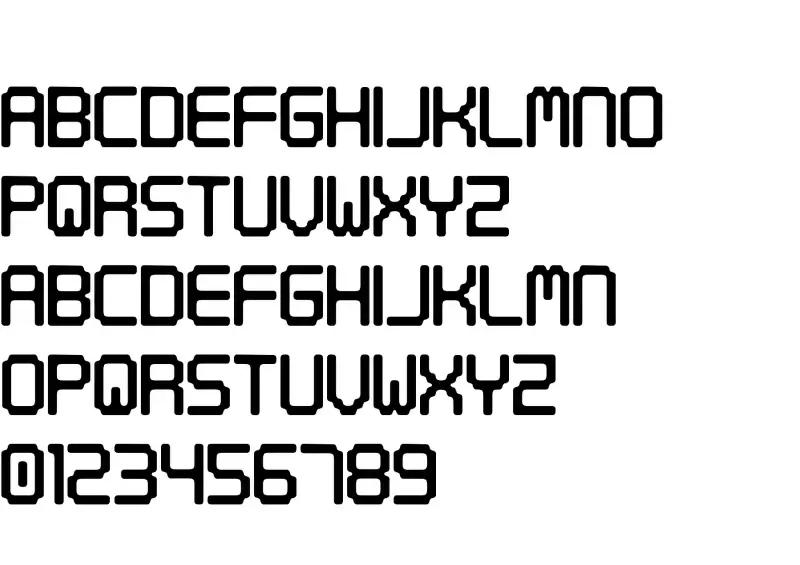
Digital Dismay Font . Download free for personal use. Digital dismay font family designed by unknown designer has a total of 1 different styles. The digital dismay font has been downloaded 18,644 times. You can download the digital dismay font to your. Digital dismay is a techno type. To license this font, please see here! Digital dismay font download is available free from fontget. Free download of digital dismay font. Download and install the digital dismay font by chequered ink. Digital dismay is a free font for personal use created by allison james. Click now to create a custom image with your own words that you can download.
Digital Dismay Font You can download the digital dismay font to your. Digital dismay is a techno type. The digital dismay font has been downloaded 18,644 times. You can download the digital dismay font to your. Download free for personal use. Digital dismay is a free font for personal use created by allison james. Digital dismay font download is available free from fontget. Digital dismay font family designed by unknown designer has a total of 1 different styles. Click now to create a custom image with your own words that you can download. Free download of digital dismay font. To license this font, please see here! Download and install the digital dismay font by chequered ink.
Digital Dismay Font 1001 Free Fonts Digital Dismay Font Digital dismay is a techno type. Download free for personal use. Download and install the digital dismay font by chequered ink. The digital dismay font has been downloaded 18,644 times. Digital dismay is a free font for personal use created by allison james. Digital dismay font download is available free from fontget. Digital dismay font family designed by unknown designer. Digital Dismay Font.
Digital Dismay Font in truetype .ttf opentype .otf format free and easy Digital Dismay Font The digital dismay font has been downloaded 18,644 times. Free download of digital dismay font. Digital dismay is a free font for personal use created by allison james. Digital dismay font download is available free from fontget. Digital dismay is a techno type. Digital dismay font family designed by unknown designer has a total of 1 different styles. To license. Digital Dismay Font.
Free Vector Flat design digital display font Digital Dismay Font The digital dismay font has been downloaded 18,644 times. You can download the digital dismay font to your. To license this font, please see here! Digital dismay is a free font for personal use created by allison james. Digital dismay font family designed by unknown designer has a total of 1 different styles. Digital dismay is a techno type. Click. Digital Dismay Font.
Download free Digital Dismay Regular font Digital Dismay.otf Digital Dismay Font Digital dismay font family designed by unknown designer has a total of 1 different styles. Free download of digital dismay font. You can download the digital dismay font to your. Download and install the digital dismay font by chequered ink. To license this font, please see here! Download free for personal use. Digital dismay is a techno type. Click now. Digital Dismay Font.
Digital Display Font Alphabet Letters And Numbers Vector, 59 OFF Digital Dismay Font The digital dismay font has been downloaded 18,644 times. Free download of digital dismay font. Digital dismay is a free font for personal use created by allison james. Digital dismay font family designed by unknown designer has a total of 1 different styles. Download and install the digital dismay font by chequered ink. Digital dismay font download is available free. Digital Dismay Font.